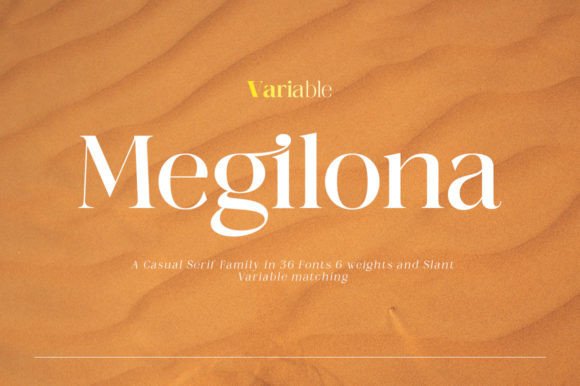
In the realm of typography, allow us to introduce you to Megilona - a font that exudes feminine allure, boundless adaptability, and an undeniably contemporary charm. Its essence lies in the seamless harmony between striking contrasts and subtle nuances, a symphony of luxurious strokes and voluptuous curves. With Megilona, your creative vision takes center stage, transforming ordinary typography into a captivating visual narrative.
For your next project, be it a book cover that beckons to be read, a fashion magazine that captivates with its elegance, or a wedding invitation that whispers of romance, Megilona stands ready to elevate your words into works of art. Its versatility extends beyond the printed page, seamlessly adapting to the digital realm. Craft website titles that command attention, social media posts that captivate audiences, and digital advertisements that leave a lasting impression.
With its effortless blend of glamor and contemporary aesthetics, Megilona breathes life into your creative pursuits, whether you're a seasoned designer navigating the depths of typography or a budding enthusiast seeking to make your mark. Let your imagination run wild as you explore the endless possibilities, from logos that exude professionalism to branding that speaks to your audience's soul.
Join the countless designers, artists, and creatives who have fallen under Megilona's spell, experiencing the joy of limitless creative expression. Discover why Megilona is not just a font; it's an artistic journey waiting to be embarked upon.